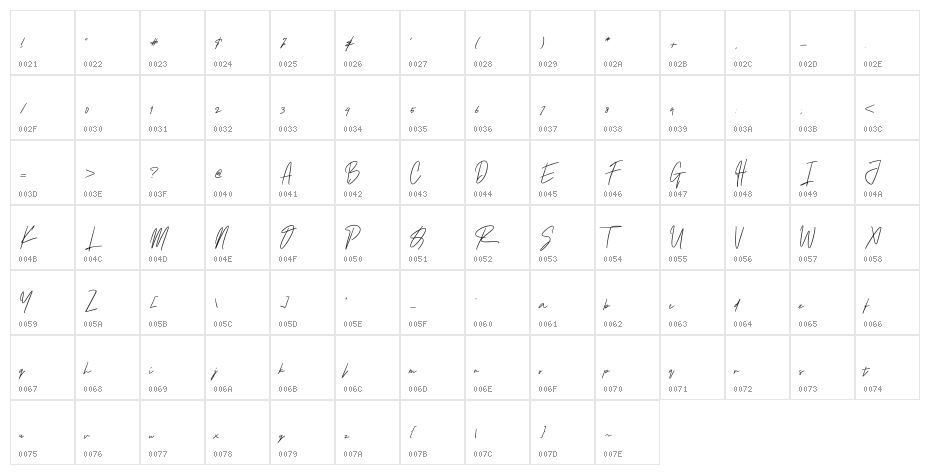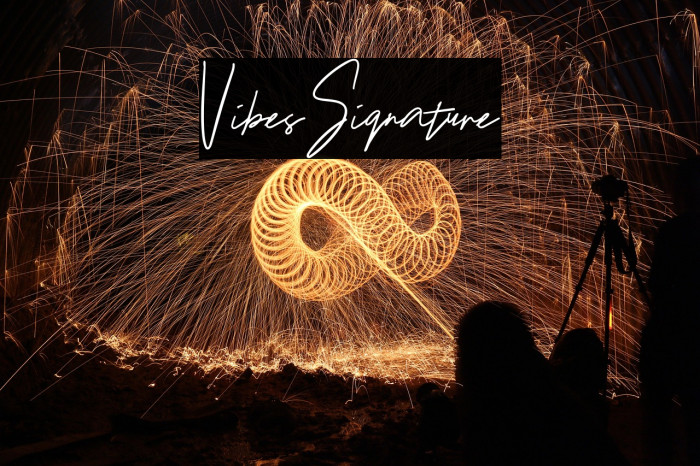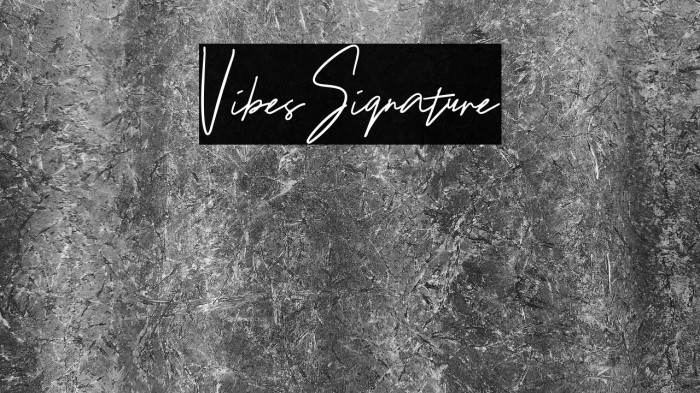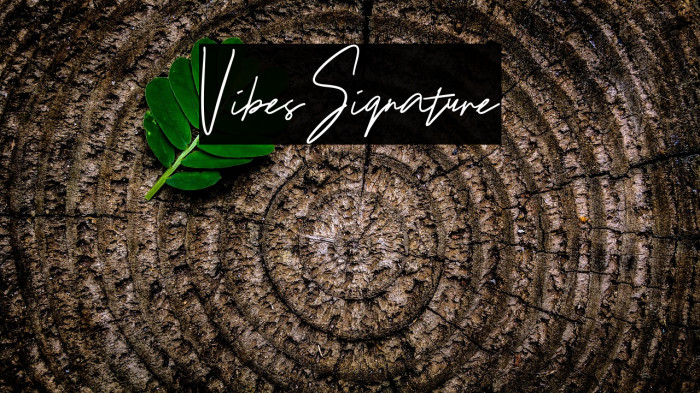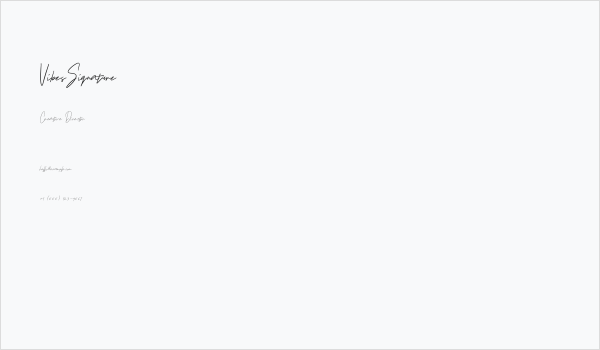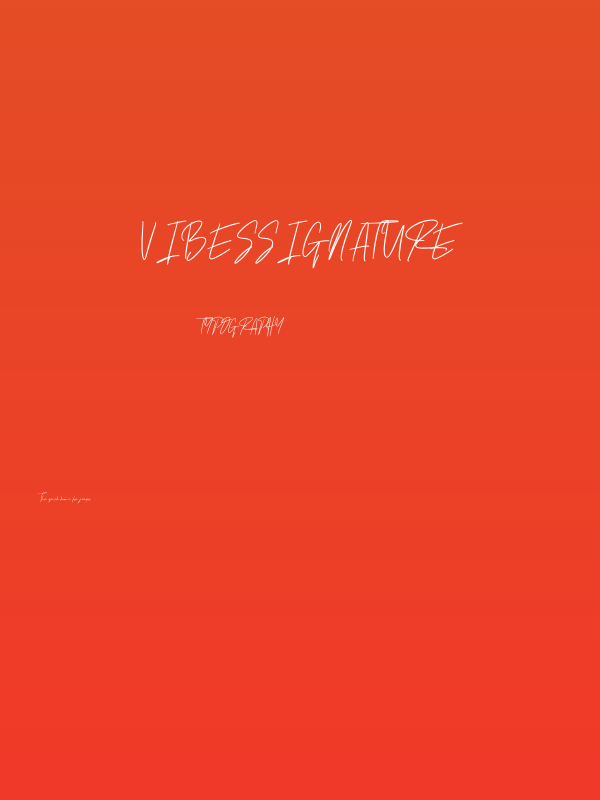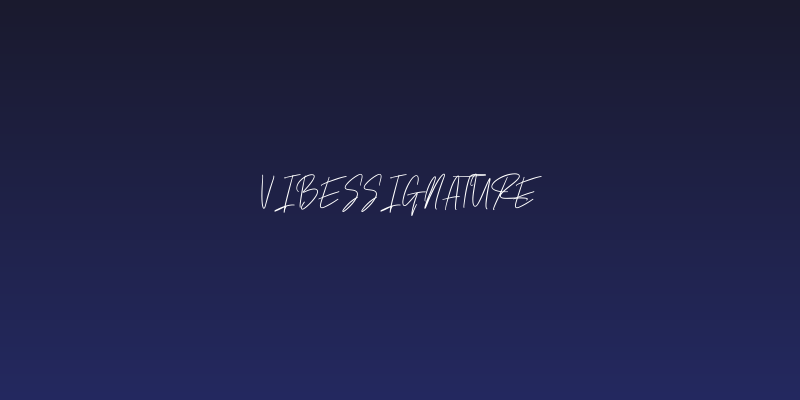
VibesSignature Font
VibesSignature Description
This font exudes a modern and stylish handwritten aesthetic, characterized by its fluid and dynamic strokes. The letters are elegantly elongated with a slight slant, giving it a casual yet sophisticated appearance. The uppercase letters are bold and prominent, while the lowercase letters maintain a consistent flow, enhancing readability. The numerals and special characters are crafted with the same attention to detail, ensuring a cohesive look across all elements. This font is perfect for projects that require a personal touch, such as invitations, branding, and social media graphics.
| Use Case | Logos, Headlines, Personal projects |
| Proposed Projects | Ideal for invitations, branding, social media graphics, and personal projects. |